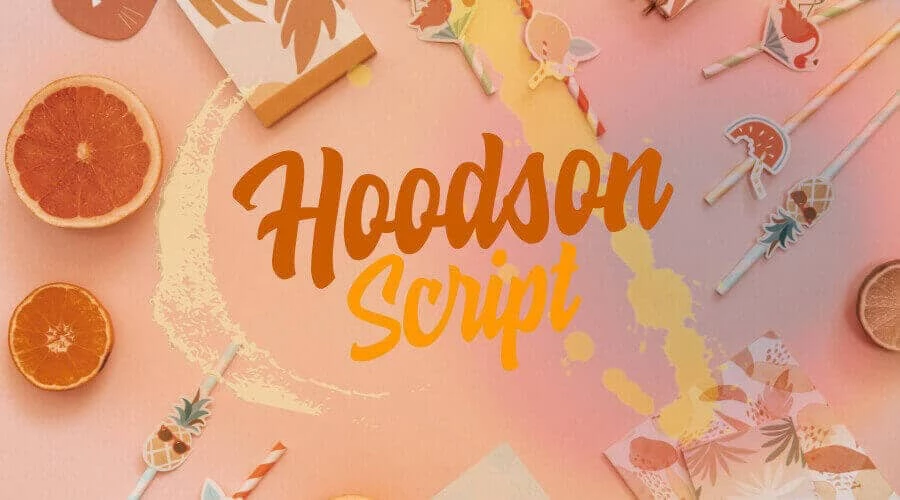
Hendra Maulia has created and released the Hoodson Script font family. Dirty Line Studio developed this retro Script font. Design by hand, this typeface looks fantastic. Vintage style and hand lettering are combined with a bouncing baseline in the Hoodson script. Moreover, it comes with a complementing marker font and a set of Swash. The Hoodson Script Font sample is based on the idea of combining outmoded style with handwriting style. OpenType features may be found in this typeface. Adobe Illustrator CS, Adobe Indesign, and CorelDraw X6-X7 are all examples of programs that support OpenType capabilities and may therefore be used to enable OpenType Stylistic Alternates. This font family has Multilanguage Support too. Hoodson Font Download is available here.
As per the design studio, due to the font’s handwritten and scripted texture, the best use case of the Hoodson Script Font will be on the:
- Logos
- Handwritten quotes
- Product packaging
- Header
- Poster
- Merchandise
- Social media &
- Greeting cards
Below is the font’s view for The Hoodson Script. This font all-character view will help you to imagine the use in your projects.
Hoodson Script Font Paring
Hoodson Script font will look awesome with:
- Agenor Bold by Graphite
- Central Bold by AVP
- Retrokia Caps Rough by Edignwn Type
- Metcon Scaled Bold by Comicraft
- Umba Soft SC Bold by Anita Jürgeleit